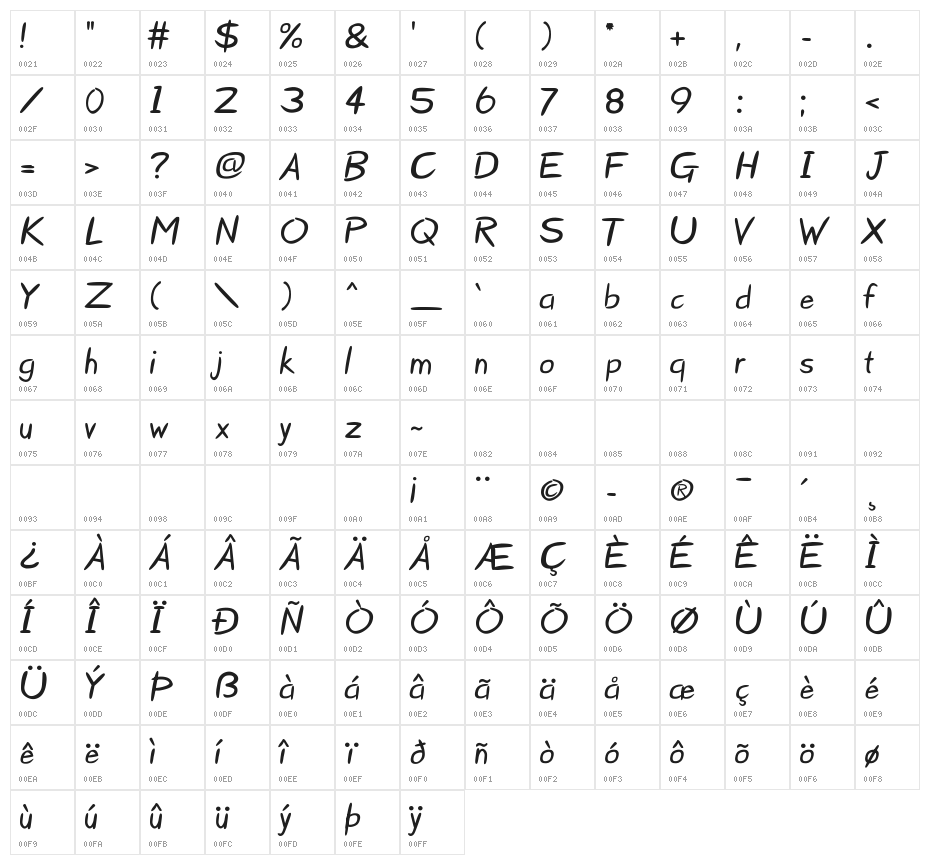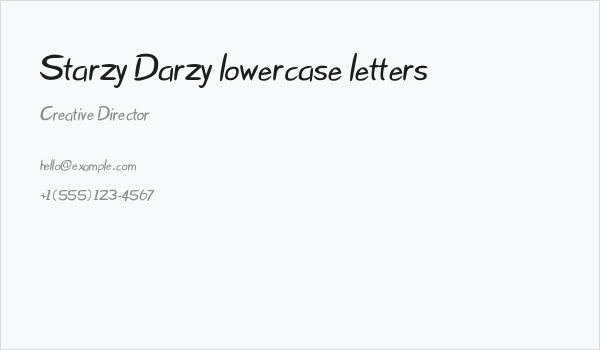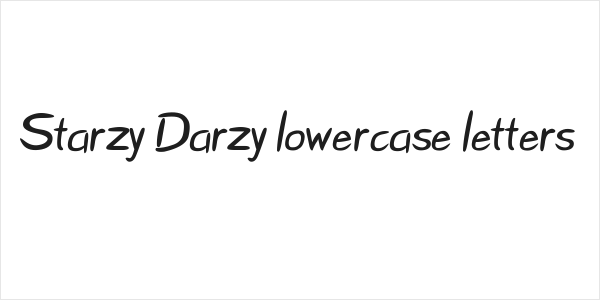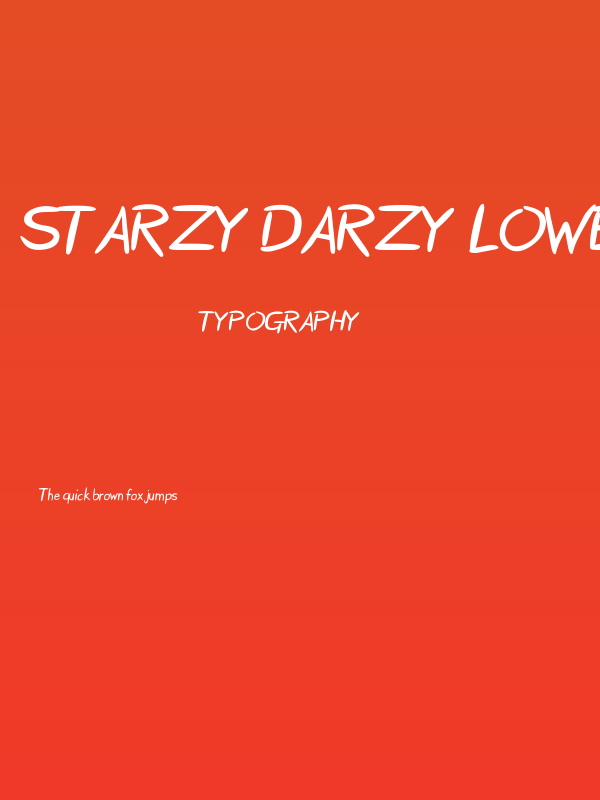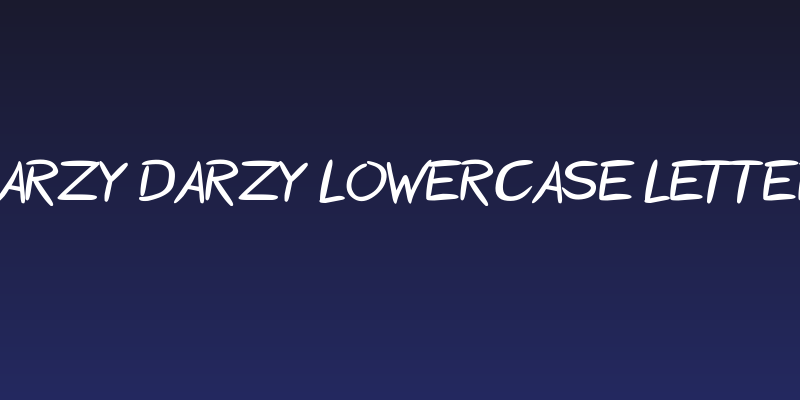
Starzy Darzy lowercase letters Font
Starzy Darzy lowercase letters Description
This font features a playful and dynamic handwritten style, characterized by its smooth curves and slightly slanted orientation. The letters are bold and expressive, with a consistent stroke width that gives it a cohesive look. The uppercase letters maintain a uniform height, while the lowercase letters have a more fluid and casual appearance. The numerals and special characters complement the alphabet with their rounded and approachable design. Overall, this font exudes a sense of fun and creativity, making it suitable for projects that aim to convey a friendly and informal tone.